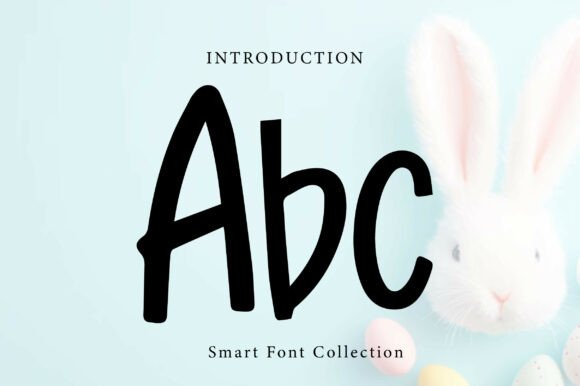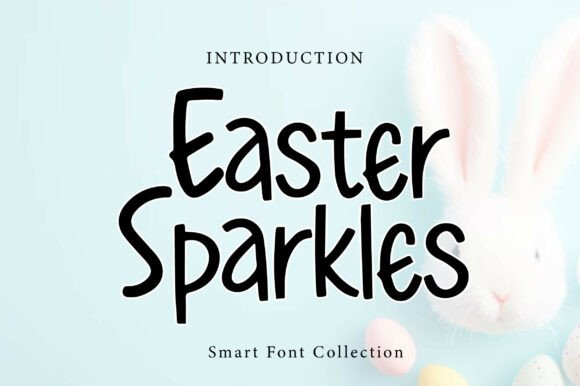
Easter Sparkles Font: Add a Joyful Touch to Your Designs
Are you looking for a font that embodies the spirit of Easter and spring? Look no further than Easter Sparkles, a delightful display font that brings a cheerful and festive touch to any design. With its playful, charming personality, this font is perfect for creating joyful and celebratory designs that are sure to captivate your audience.
What Makes Easter Sparkles Special?
Easter Sparkles is a cute and festive display font that is designed to add a touch of whimsy and fun to your designs. Its delightful letterforms are carefully crafted to bring a cheerful seasonal touch that makes every design feel sweet, fun, and full of celebration. Whether you’re designing for Easter events, spring promotions, or cute handmade products, this font is sure to bring a magical and festive feel to your work.
Perfect for Easter-Themed Projects and More
Easter Sparkles is a versatile font that can be used for a wide range of design projects. Its playful appearance makes it perfect for:
- Easter-themed projects, such as Easter egg designs, bunny illustrations, and spring-themed graphics
- Spring designs, including floral patterns, garden-inspired artwork, and outdoor-themed promotions
- Greeting cards, invitations, and party decorations that require a festive and celebratory touch
- Children’s products, such as stickers, coloring books, and educational materials
- Printable crafts, including DIY projects, craft tutorials, and activity sheets
- Social media graphics, such as Easter-themed posts, spring-inspired quotes, and fun illustrations
Why Choose Easter Sparkles?
Easter Sparkles is a wonderful choice for designers, crafters, and creators who want a typeface that feels fun, seasonal, and full of charm. Here are just a few reasons why:
- Unique and playful design: Easter Sparkles features a lively and decorative style that sets it apart from other fonts
- Easy to read: Despite its playful appearance, Easter Sparkles is easy to read and understand, making it perfect for designs that require a clear message
- Versatile: This font can be used for a wide range of design projects, from digital graphics to print materials
- Festive and celebratory: Easter Sparkles brings a magical and festive feel to any design, making it perfect for Easter-themed projects and spring designs
How to Use Easter Sparkles in Your Designs
Using Easter Sparkles in your designs is easy and fun. Here are a few tips to get you started:
- Pair it with other fonts: Easter Sparkles looks great when paired with other fonts, such as sans-serif fonts for a modern look or script fonts for a more elegant feel
- Experiment with colors: This font looks great in a variety of colors, from bright and bold to soft and pastel
- Add graphics and illustrations: Easter Sparkles is perfect for designs that feature graphics and illustrations, such as Easter eggs, bunnies, and spring flowers
- Use it for titles and headings: This font is perfect for titles and headings, where its playful and festive appearance can really shine
Easter Sparkles is a delightful display font that brings a cheerful and festive touch to any design. With its playful, charming personality and versatile design, it’s perfect for Easter-themed projects, spring designs, and a wide range of other creative projects. Whether you’re a designer, crafter, or creator, Easter Sparkles is a wonderful choice for anyone looking to add a joyful and celebratory touch to their work.